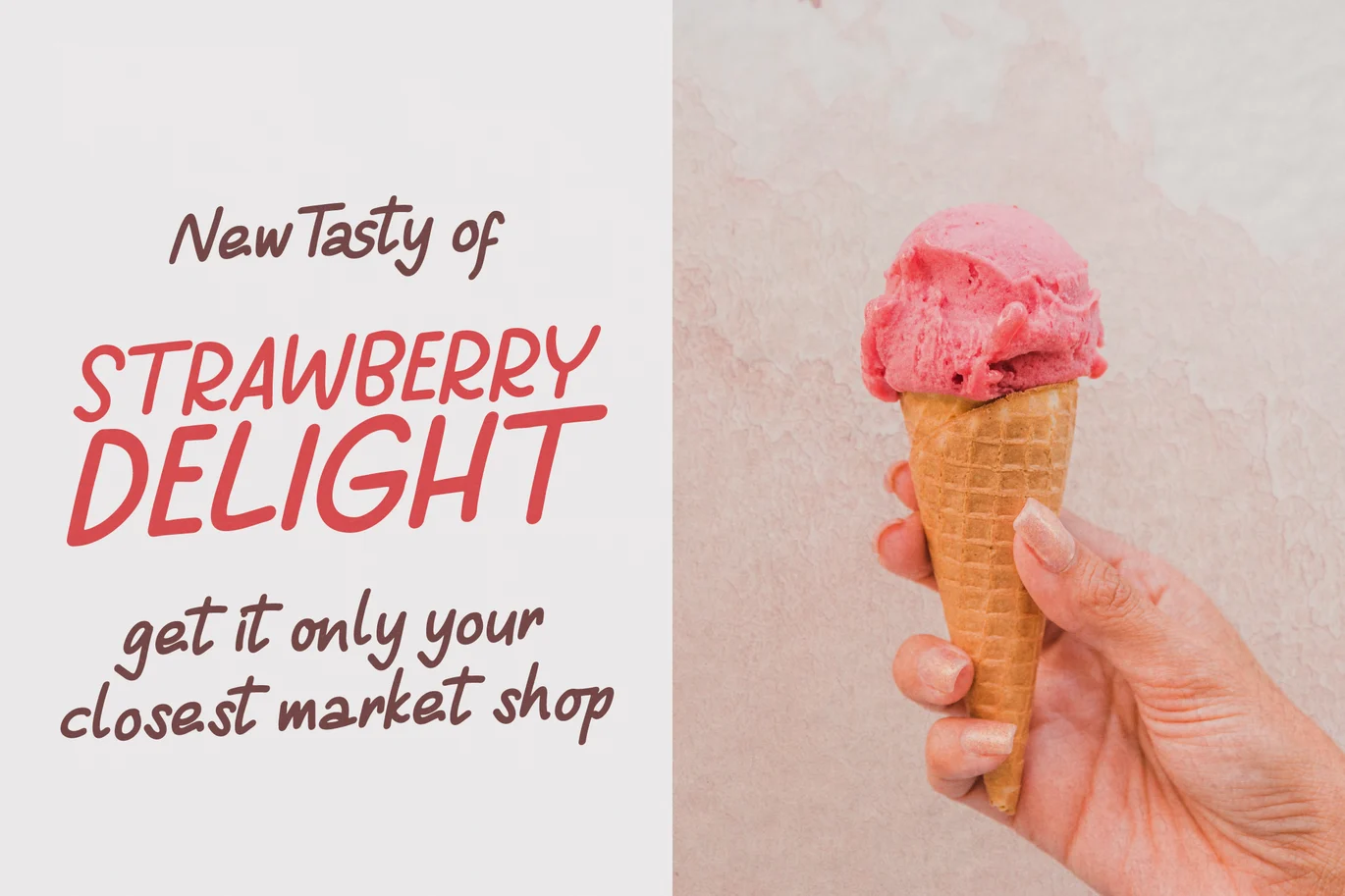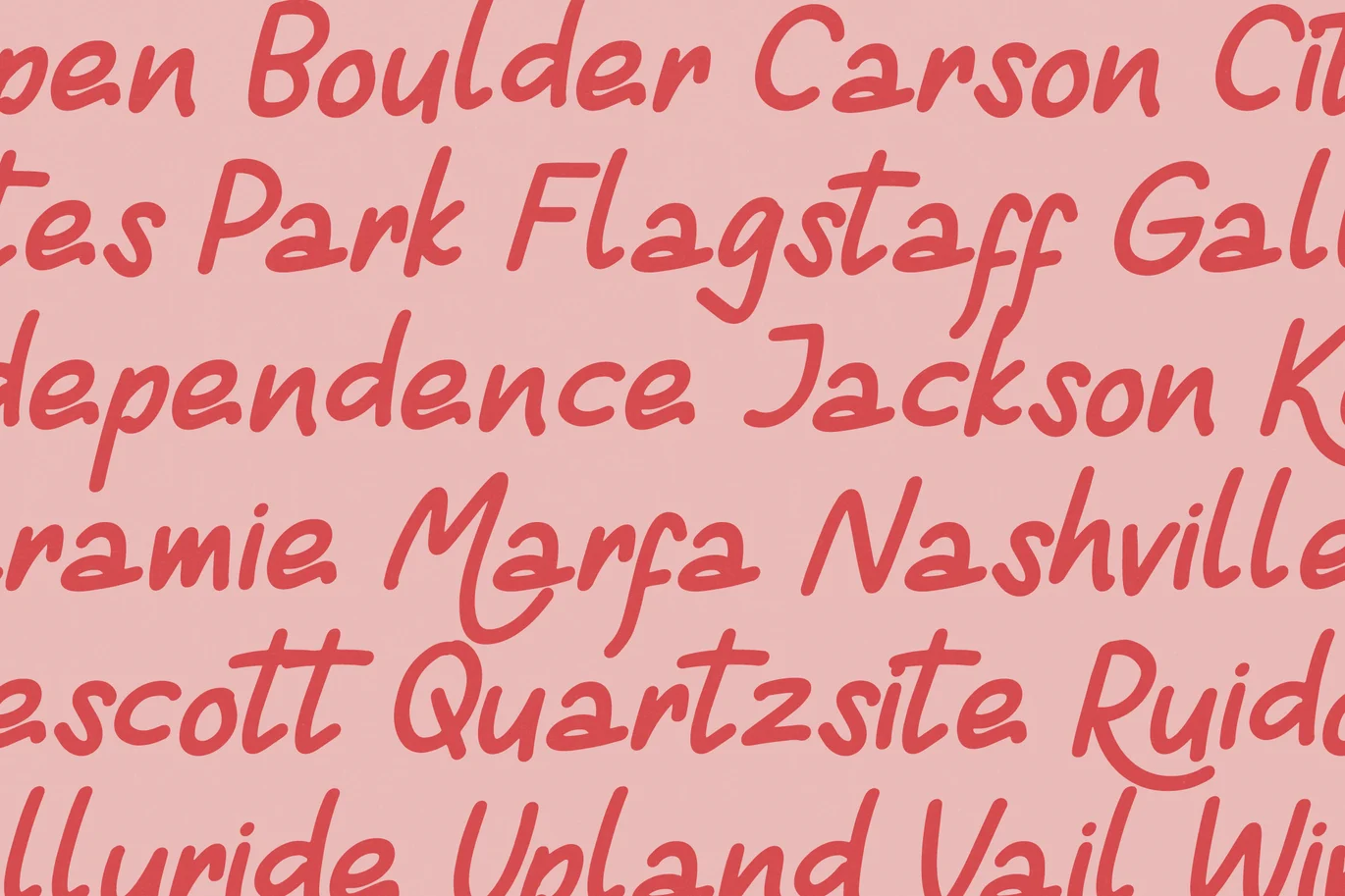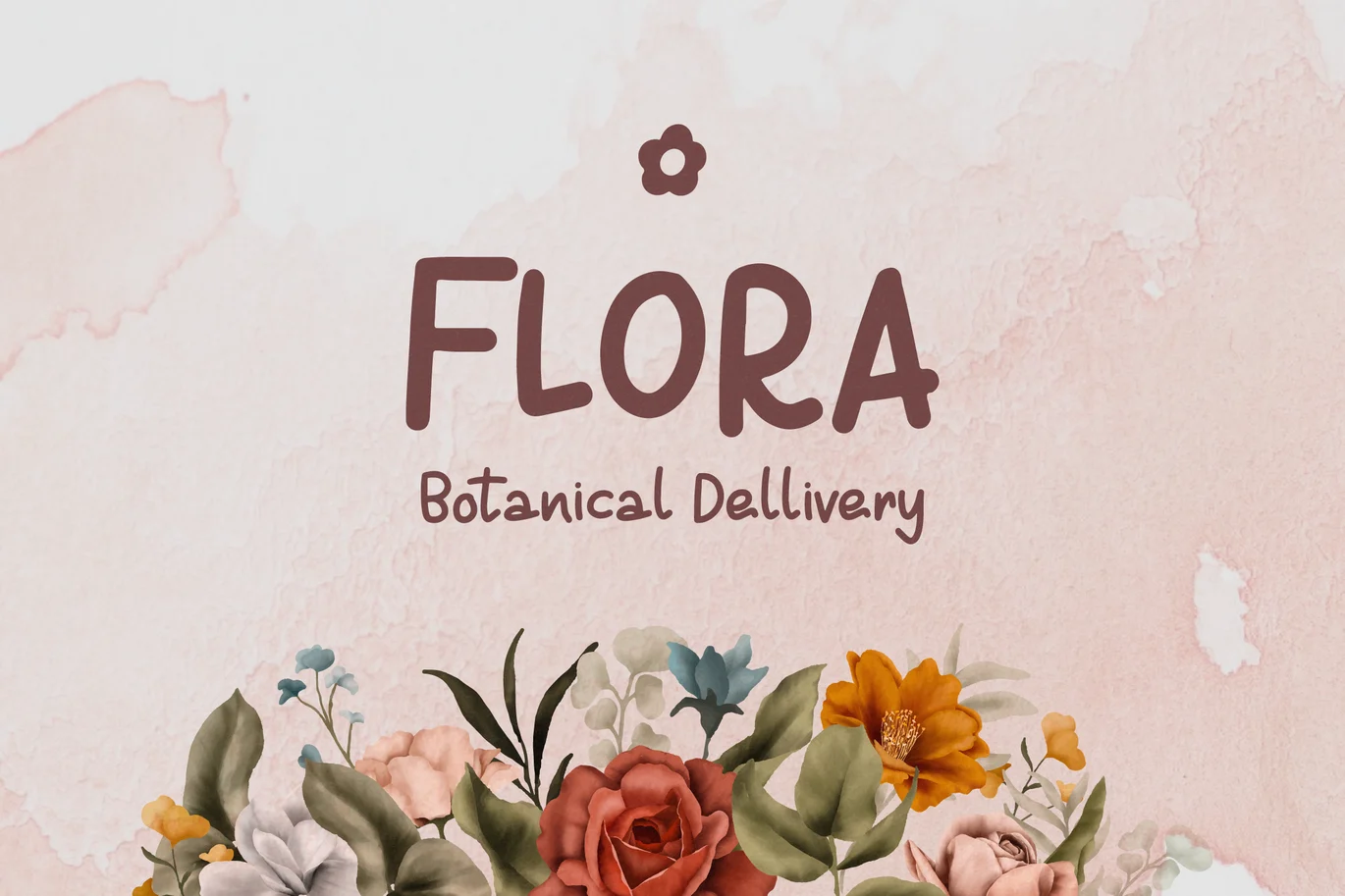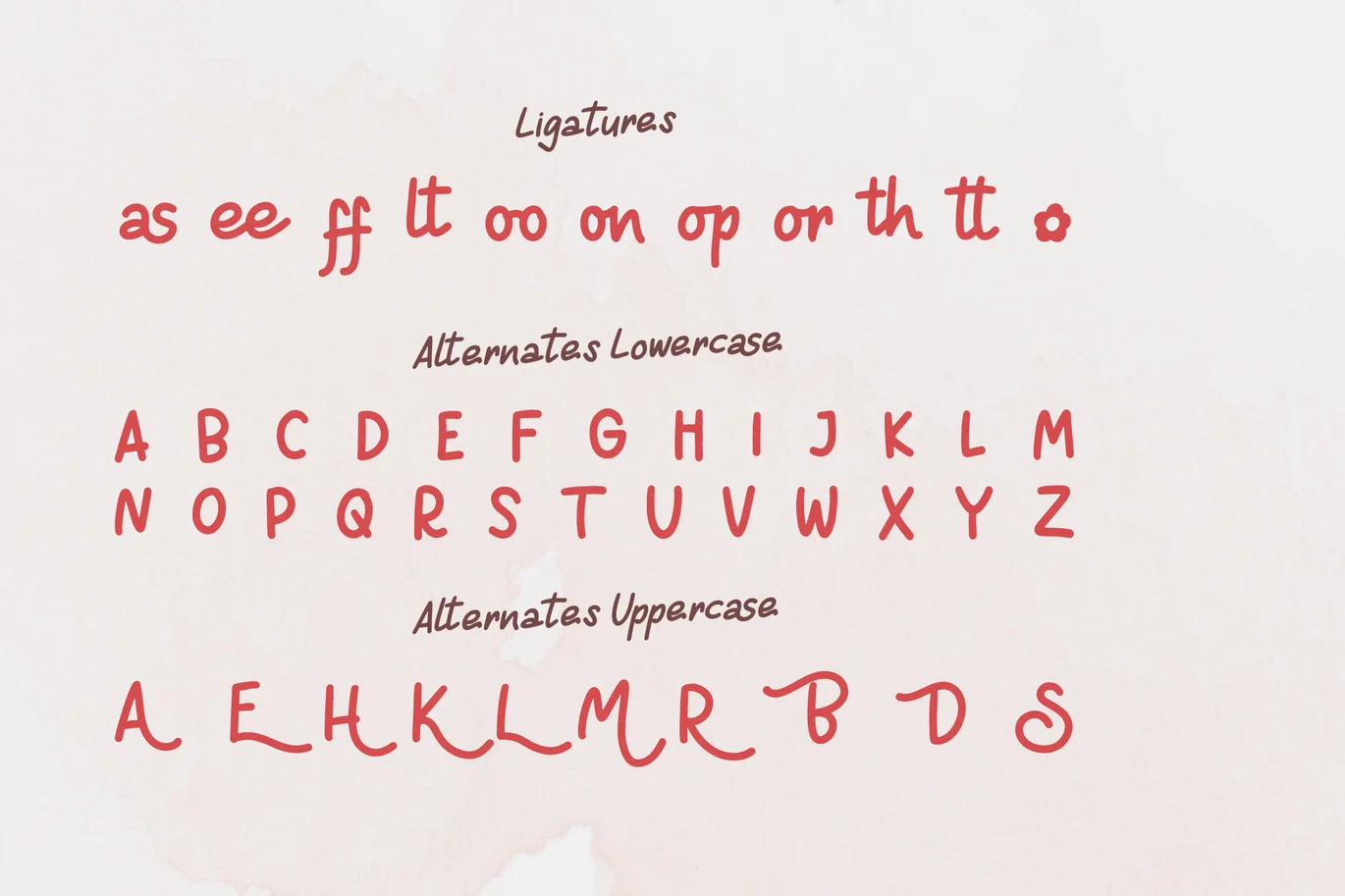
Beginning Joy | Monoline Hand Drawn Font
Beginning Joy font is designed to deliver a strong, versatile visual character, balancing aesthetics and readability. Every detail is carefully crafted to ensure a clear, consistent, and visually appealing result across a wide range of design needs.
With well-structured letter proportions and support for features such as alternate characters and ligatures, this font allows for greater creative exploration. The final result is dynamic, distinctive, and professional, making it adaptable to a range of design styles.